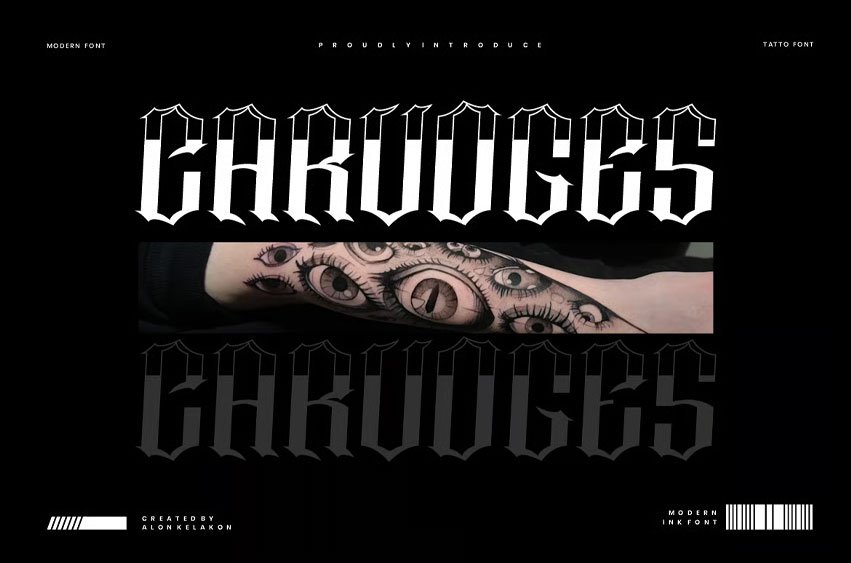
Carvoges Font is a modern blackletter font designed to make a bold, unforgettable statement. This typeface blends the classic elegance of Gothic calligraphy with a sharp, contemporary edge, perfect for projects that demand a powerful and rebellious feel.
Inspired by the intricate lines and shadows of tattoo artistry, Carvoges features stunning, stylized letterforms with sharp serifs and a balanced structure. It’s a versatile display font that works beautifully for headlines, logos, branding, and poster designs. The unique character of this font ensures your designs will stand out from the crowd.
Carvoges comes with a full set of uppercase and lowercase letters, numerals, and punctuation, giving you everything you need to create impactful typography. Whether you’re working on a gothic-themed project, a modern tattoo studio logo, or a hardcore music album cover, this font is the perfect choice to capture a raw, edgy, and stylish look.
Perfect for:
- Logos & Branding
- T-shirt Designs
- Album Covers
- Posters & Banners
- Tattoo-inspired Art
- Video Game Titles
- Social Media Graphics
Unleash the power of modern blackletter with GARUDGES and give your designs the aggressive and eye-catching vibe they deserve.